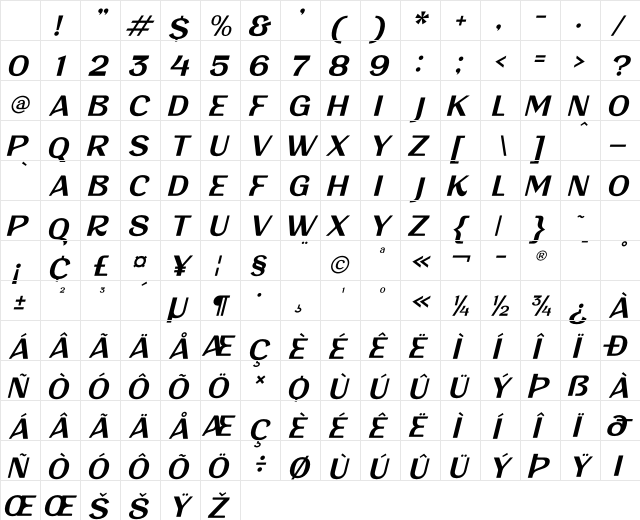
Belriner is a composed and adaptable typeface that performs quietly and consistently across a wide range of design contexts. The slanted form adds forward momentum and visual energy.
Pro Tip: Use Belriner for emphasis, pull quotes, and subheadings where its slanted energy can add rhythm to the layout.